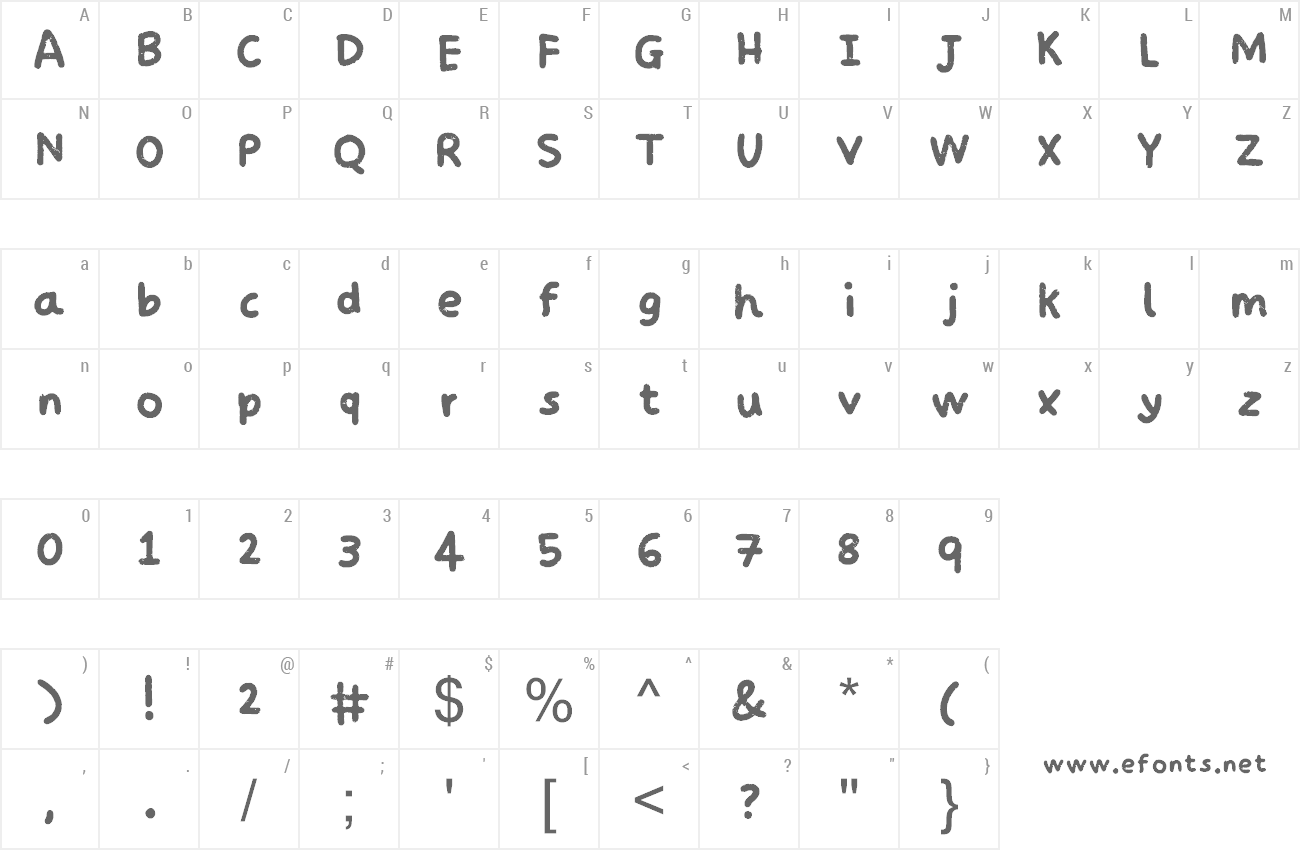
Preview and download Dry Whiteboard Marker Font. Created by Emily Underworld in Script Handwritten styles with Free for personal use license.
A simple easy-to-read handwritten font, inspired by a dry whiteboard marker. Contains A-Z Letters, Numbers, and these punctuation glyphs: @!%&*()-+="?#,. My fonts will always be FREE for personal use. If you would like to inquire about a custom-made font or commercial use, please email me at emilyunderworld@gmail.com https://emilyunderworld.co.uk |